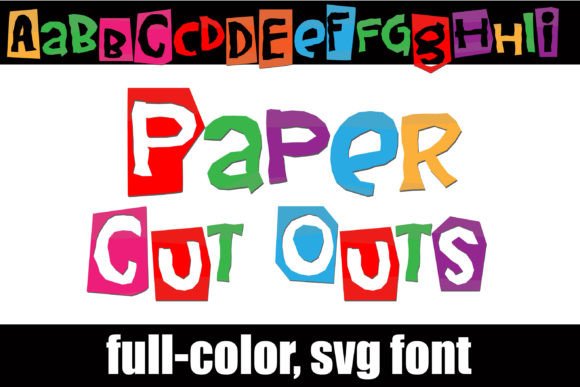
Introducing the Paper Cut Outs Font, a vibrant and playful addition to your font collection. Created by Illustration Ink, this colorful font is specifically designed for children's books, capturing the essence of youthful creativity and imagination.
With its unique appearance, the Paper Cut Outs Font resembles letters cut from children's construction paper, adding a delightful touch to any design. But what sets this font apart is its alt version of each letter in a different color, allowing you to unleash your creativity and bring your ideas to life.
Why choose full-color SVG fonts? The answer is simple – they offer endless possibilities and unrivaled quality. With a wide range of colors and styles, the Paper Cut Outs Font empowers you to create everything from charming text logos to intricate illustrations. And thanks to their vector-based nature, these fonts can be scaled to any size without sacrificing sharpness or clarity.
Full-color SVG fonts are perfect for various projects, whether it's crafting captivating logos and branding, designing eye-catching websites, or printing vibrant materials. Their versatility knows no bounds, making them an indispensable tool for any creative endeavor.
If you're searching for a font that seamlessly blends fun, versatility, and top-notch quality, look no further than the Paper Cut Outs Font. It's the ideal choice for designers, illustrators, and anyone in need of a font that can truly make their projects shine.